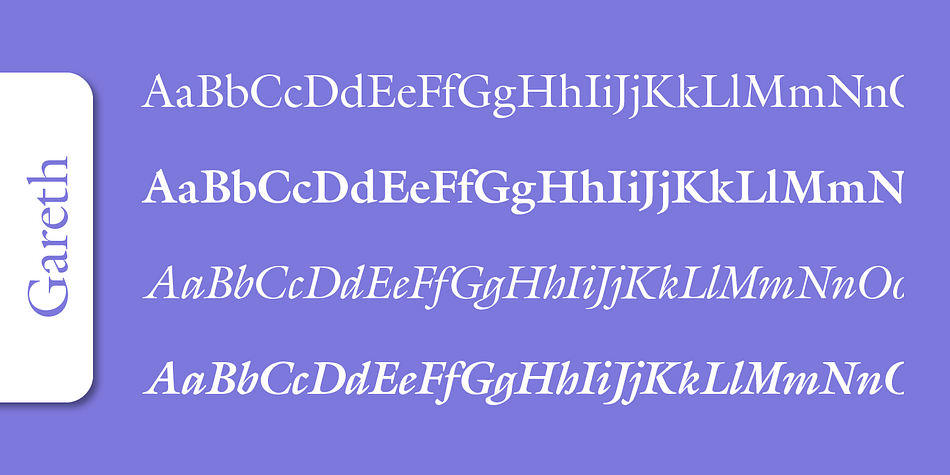
Gareth Pro
Gareth Pro is a serif font family. This typeface has four styles and was published by SoftMaker.
Gareth Pro is a contemporary adaptation of Robert Granjon’s 16th century design. The result was not a literal copy of any one of Granjon’s faces, more a reinterpretation of his style. Gareth Pro captures the vitality of Granjon’s work in a graceful, modern typeface.